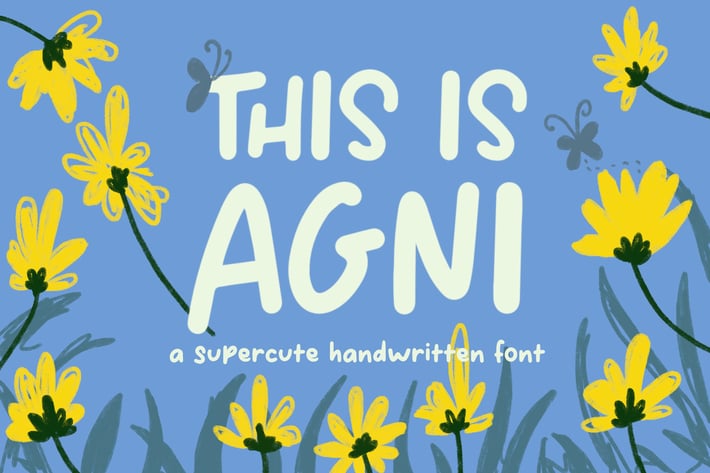
This Is Agni – Cute Handwritten Font
Introducing This Is Agni – a casual and supercute handwritten font, perfect for your quotes, children's book cover, handwritten notes, invitation cards, nursery wall art, and so many other projects!